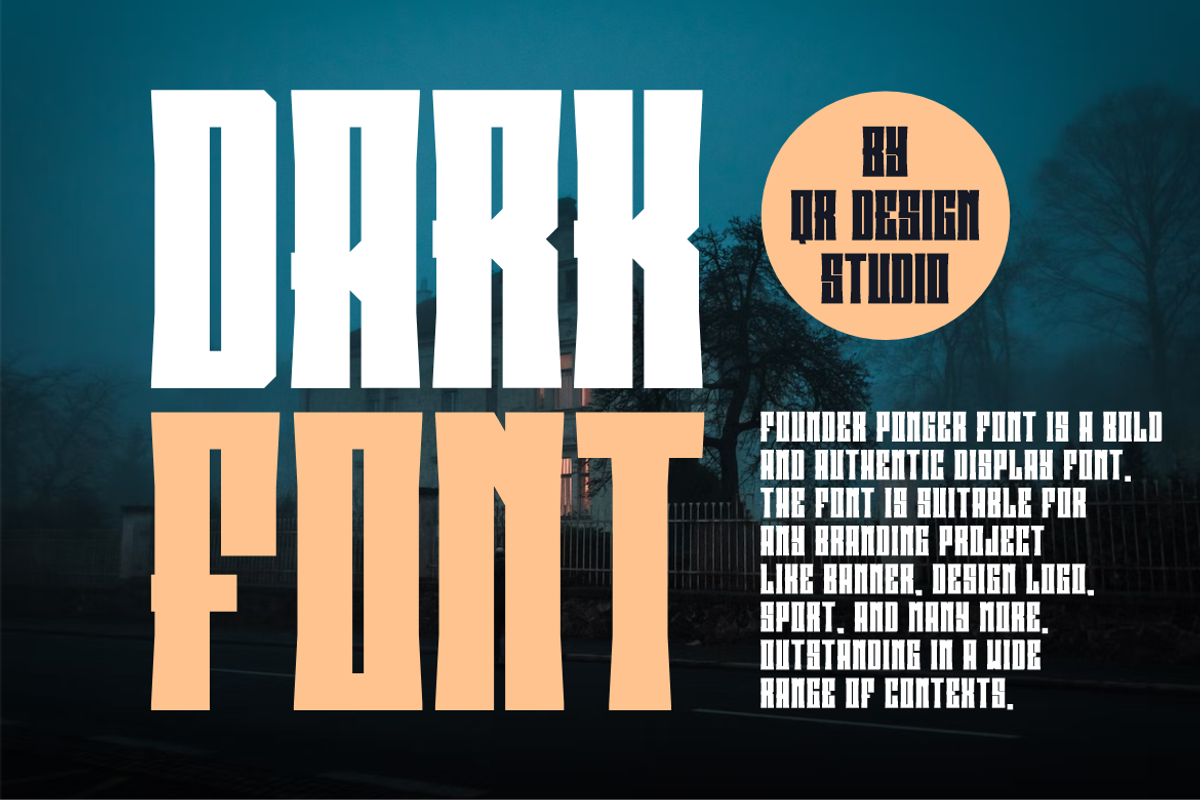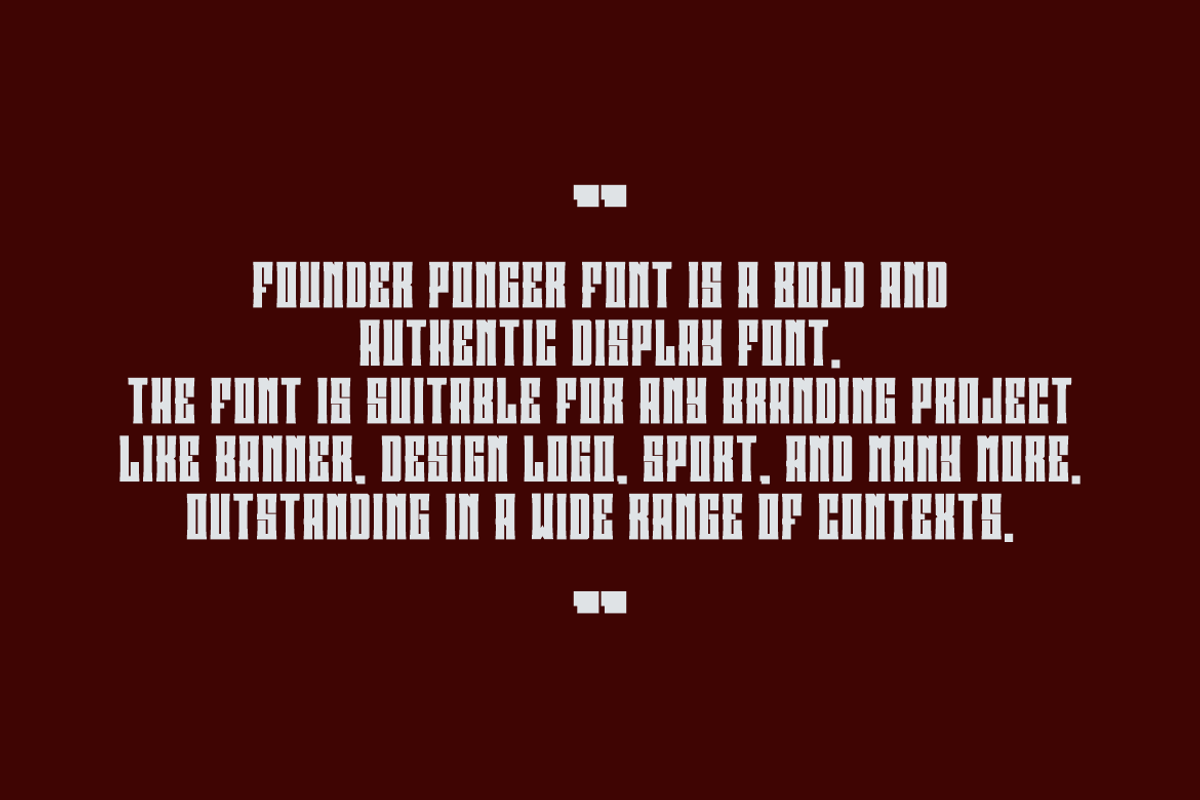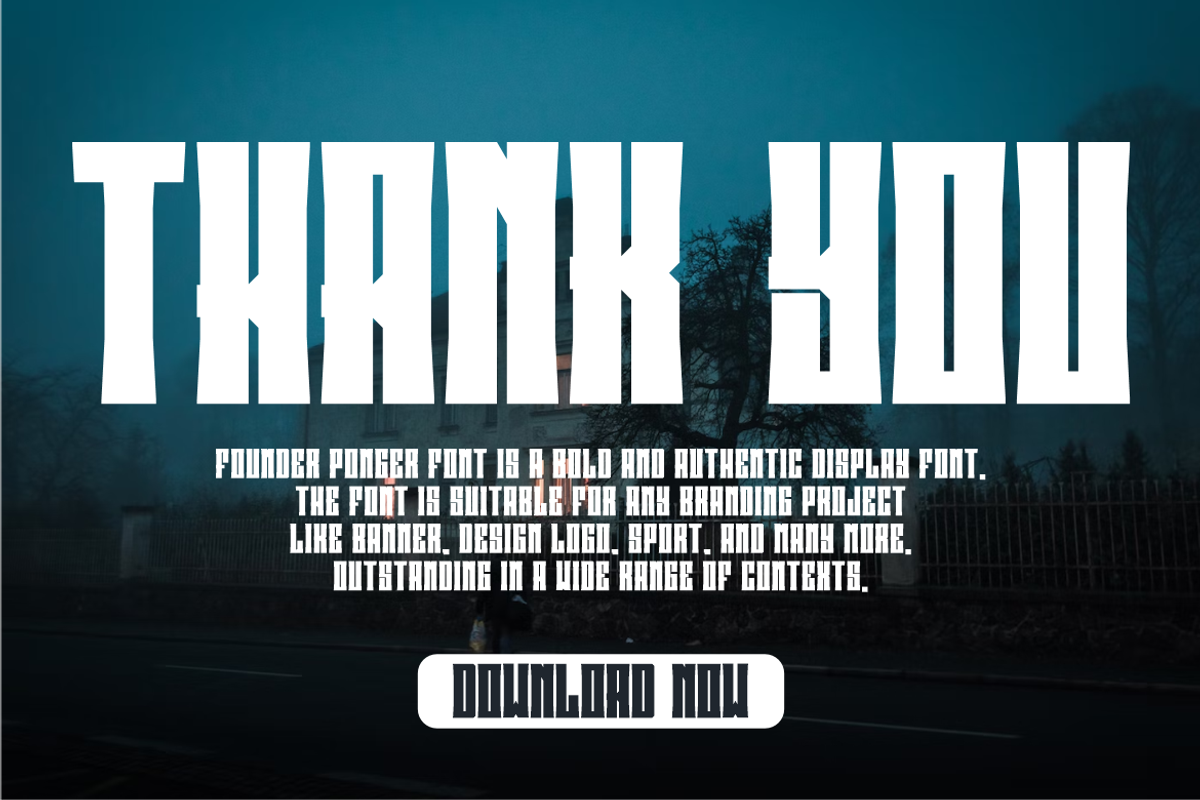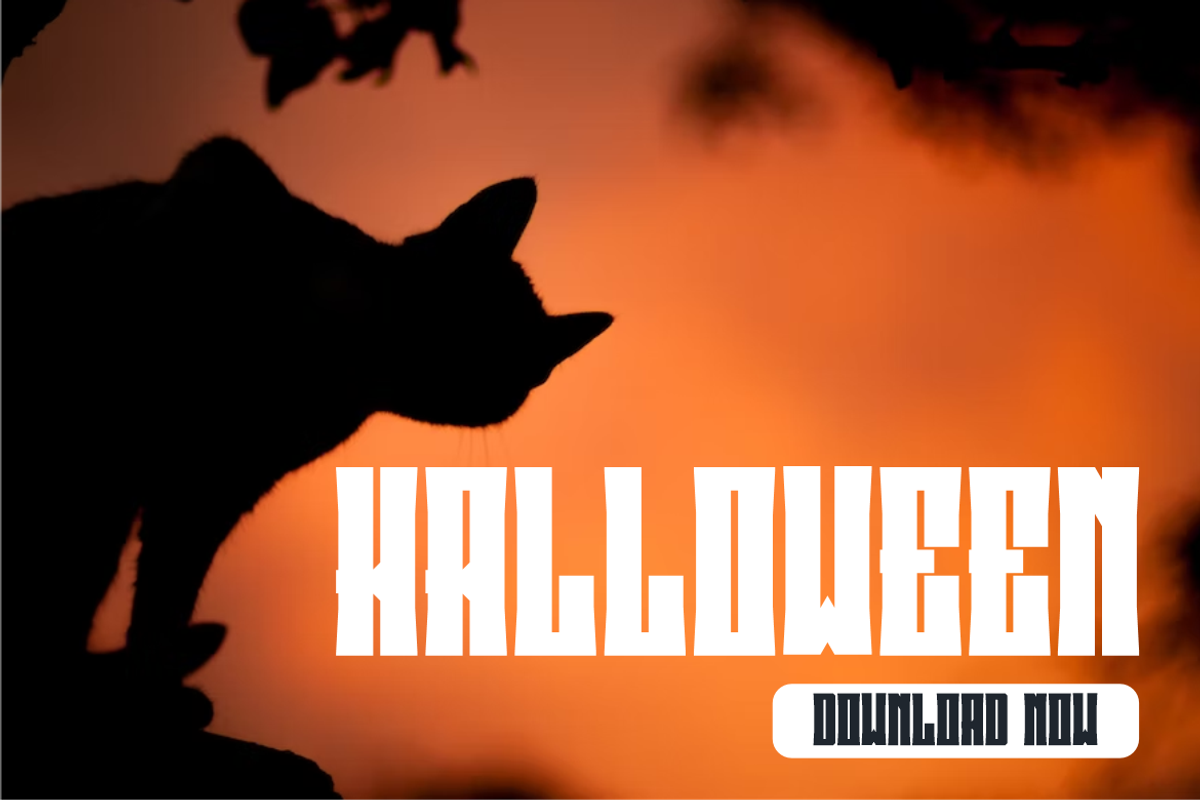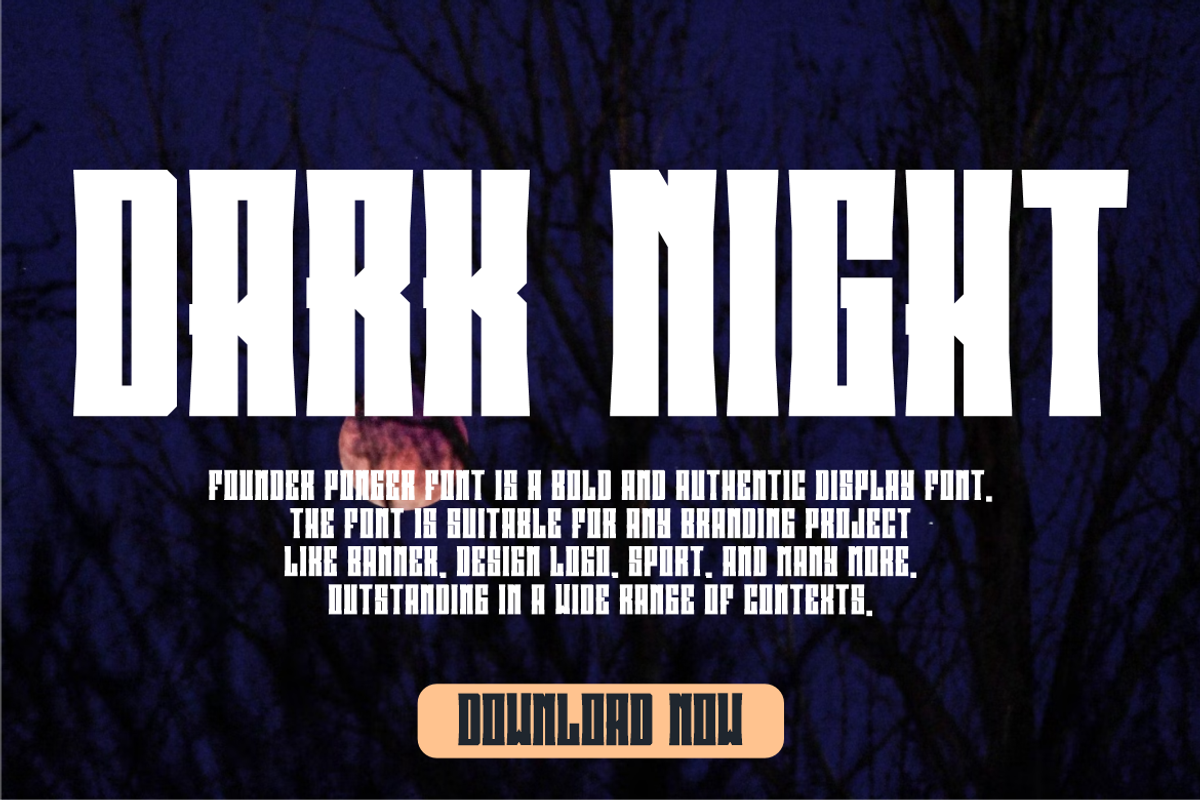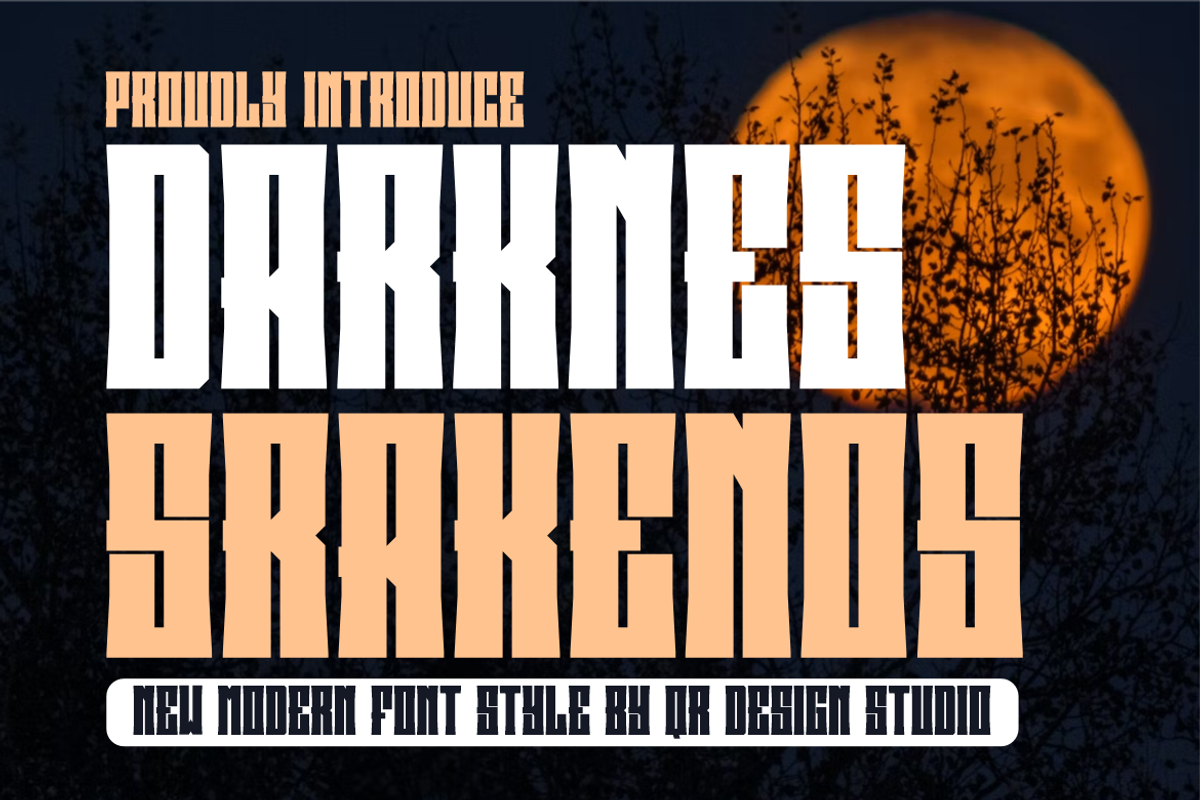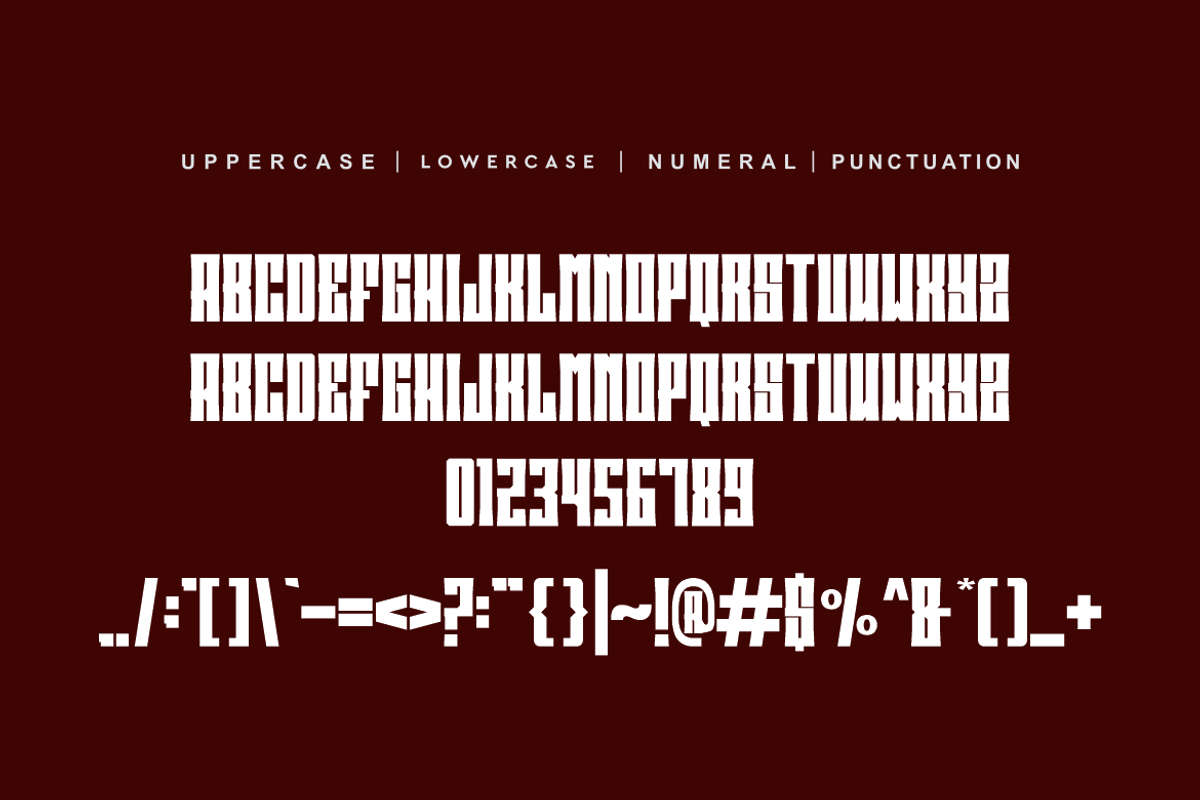
Darknes Srakenos
Darknes Srakenos Font is a bold and authentic display font. The font is suitable for any branding project like logo, sport, and many more. Outstanding in a wide range of contexts.